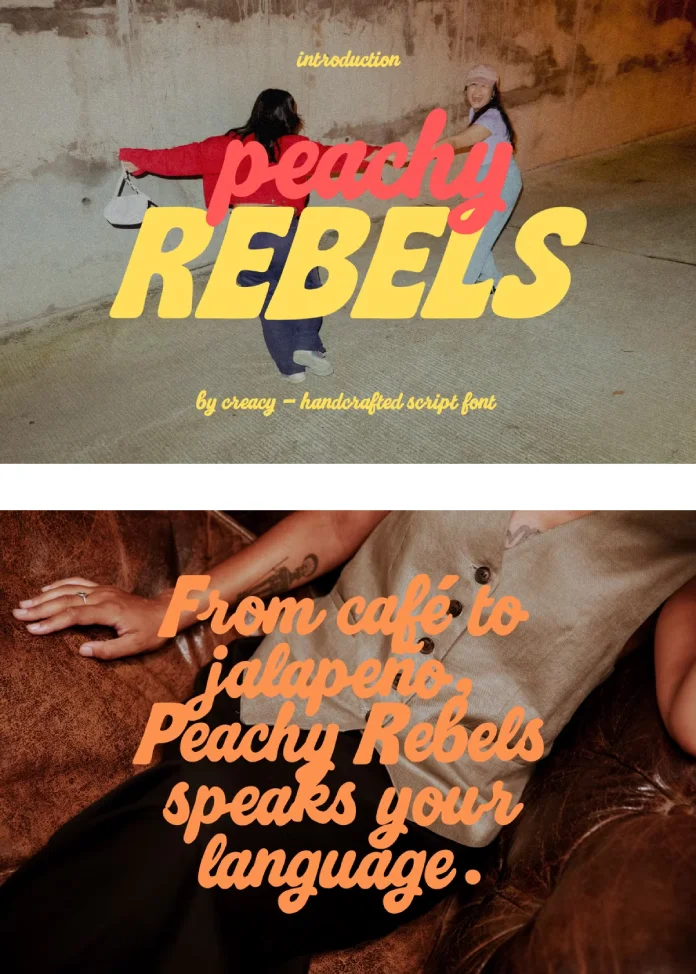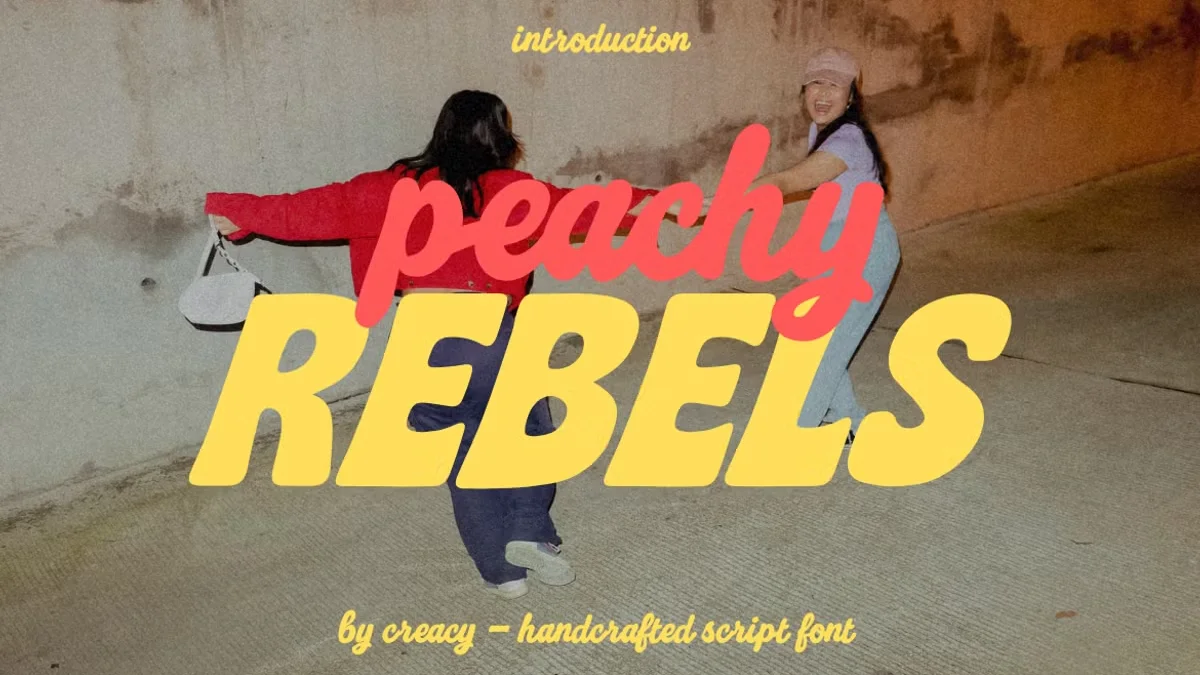
Peachy Rebels is the Ultimate Font Duo for Retro Charm and Unforgettable Designs
Finding a typeface that truly captures a brand’s personality can feel like a search for a needle in a haystack. You need something that communicates confidence without being cold, and friendliness without being flimsy. The Peachy Rebels font from Creacy Studio arrives as a powerful answer to this creative challenge. This isn’t just another font; it’s a complete typographic toolkit designed to inject vibrant, retro energy into your work. It masterfully combines two distinct yet complementary styles: a bold, chunky sans serif for your headlines and a flowing, charismatic script for the finer details. Consequently, the Peachy Rebels font duo gives designers a ready-made pairing that feels both professional and packed with personality. What if a single font could give you both a powerful shout and a friendly whisper?
The Power of a Perfect Pair: Why Font Duos Work
Before we explore the two sides of Peachy Rebels, it is important to understand why font duos are so effective. Great design hinges on contrast and hierarchy. Your audience needs to know what to read first, what’s most important, and what feels like a supporting thought. A font duo provides this structure instantly.
By pairing a strong, architectural sans serif with a soft, organic script, you create an immediate visual dynamic. The bold font grabs attention, establishing the primary message. Meanwhile, the script font adds a layer of human touch, emotion, and nuance. This built-in contrast does the heavy lifting for you, creating designs that are balanced, engaging, and easy to navigate. The Peachy Rebels font is a perfect example of this principle in action, offering a pre-packaged solution that guarantees visual harmony.
Meet the Rebel: The Bold Sans Serif
The uppercase sans serif in the Peachy Rebels font family is the heart of its assertive personality. It’s chunky, rounded, and unapologetically bold. This font doesn’t ask for attention; it commands it with a cool, vintage confidence. Think of classic 70s album covers, retro brand logos, and posters that needed to make a statement from across the street.
This is the part of the duo you’ll use for your main headlines, logos, and impactful single words. Its clean lines and substantial weight ensure maximum readability, even at a glance. Yet, its rounded edges keep it from feeling too harsh or corporate. Instead, it feels approachable and fun, like a cool older sibling with fantastic taste in music. This sans serif is your tool for creating a solid foundation for any design that needs to feel both strong and stylish.
Meet the Peachy: The Charming Script
Now, let’s talk about the script. If the sans serif is the bold statement, the lowercase script is the charming, personal whisper that follows. This part of the Peachy Rebels font duo flows with a smooth, handwritten rhythm that feels authentic and natural. It’s the perfect counterbalance to the structure of its partner.
This script carries a sweet yet sassy tone. It’s not a formal, calligraphic script; rather, it’s bubbly, carefree, and full of life. It’s ideal for taglines, subheadings, call-to-action buttons, or any place you want to add a touch of handcrafted charm. Furthermore, the inclusion of special ligatures and alternate characters means you can create text that looks genuinely unique, avoiding that repetitive “font” look. This is where the “Peachy” in Peachy Rebels font truly shines, adding a layer of warmth and approachability to the overall design. What could you say with such a personable script?
How the Peachy Rebels Font Transforms Your Creative Projects
The true strength of the Peachy Rebels font lies in its incredible versatility. This isn’t a one-trick pony. Its dual nature allows it to adapt to a massive range of applications, making it an invaluable asset for any designer, marketer, or content creator.
Here’s where you can put this powerful duo to work:
- Bold Branding: Create a memorable logo by using the sans serif font for the brand name and the script for a tagline. It’s a combination that feels established yet modern, making it a fantastic branding font for lifestyle brands, creative agencies, cafes, and fashion labels.
- Engaging Social Media Graphics: Stop the scroll. Use the Peachy Rebels font for your Instagram quotes, sale announcements, and story highlights. The high-contrast pairing is perfect for creating graphics that pop on a busy feed, making it a go-to playful font for Instagram quotes.
- Fun and Funky Packaging: Whether you’re designing a label for a craft beer, a box for a cosmetic product, or a bag for a boutique, this font adds instant shelf appeal. Its retro vibe can communicate organic quality, rebellious spirit, or pure, unadulterated fun.
- Eye-Catching Posters and Flyers: For events, promotions, or just decorative art prints, the Peachy Rebels font delivers. Its bold presence ensures your message gets seen, while the script can add essential details in a more elegant style.
The Creator’s Toolkit: Technical Features and What They Mean for You
Creacy Studio didn’t just design a beautiful font; they built a functional tool for professionals. Understanding the features included with the Peachy Rebels font helps you unlock its full potential.
This font duo is more than just a set of letters; it’s a shortcut to creating cohesive, dynamic, and memorable visuals. It eliminates the guesswork of font pairing and provides a reliable foundation for building a strong brand identity. So, the real question isn’t whether you need this font. It’s what amazing thing will you create with it first?